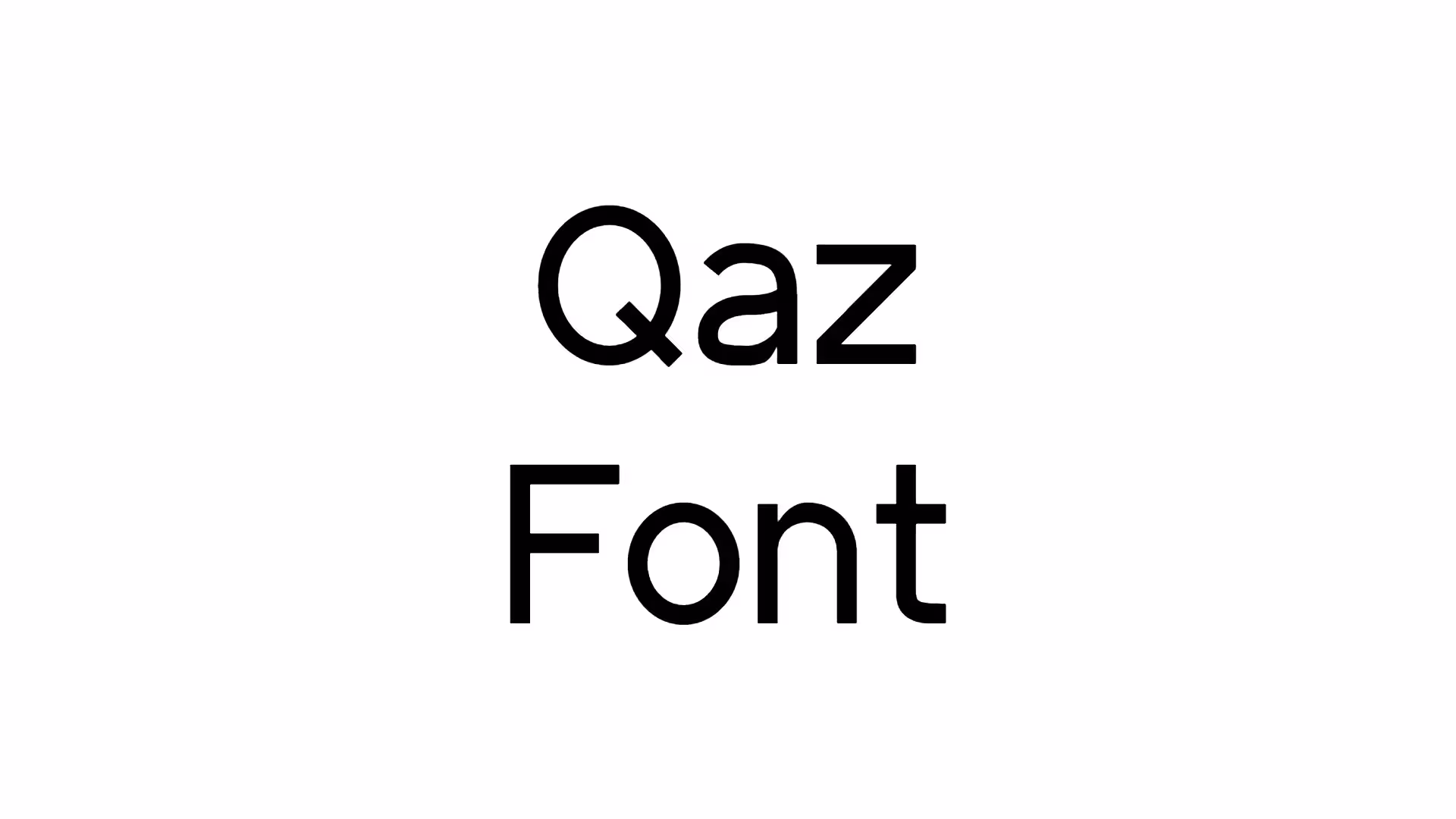
Qaz
Qaz is a sans serif font designed by GGBotNet (2024). It has a clean, no-nonsense look that fits modern brands and websites. The free download includes two styles, and you can try every one of them with your own text in the preview above.
Qaz Font Details
- Designer: GGBotNet
- Color font: Yes, colors are built into the letters
- Glyphs: 888 in the Regular style
- Version: 0.85
What You Can Type With Qaz
Qaz covers the full alphabet in upper and lowercase, plus all ten numbers, so you can set names, dates and prices without switching fonts. Common punctuation such as &, !, ? and @ is included as well. It also has the accented letters you need for Spanish, French, German, Portuguese and Italian.
Colors Built Into Qaz
Its colors live inside the font file. Photoshop, Illustrator and web browsers show them; many other apps show the letters in one plain color instead.
Where Qaz Works Best
Qaz is a natural fit for websites, app screens and clean logos. Its lowercase letters are tall compared to the capitals, which keeps it readable at smaller sizes. It works for headings and body text alike. If the download has several weights, use a heavier one for titles and a lighter one for paragraphs. Because the family has more than one style, you can mix them in a single design for headings, subheadings and highlights.
Yes. Qaz includes the accented letters needed for Spanish, French, German, Portuguese and Italian, so it works for more than just English.